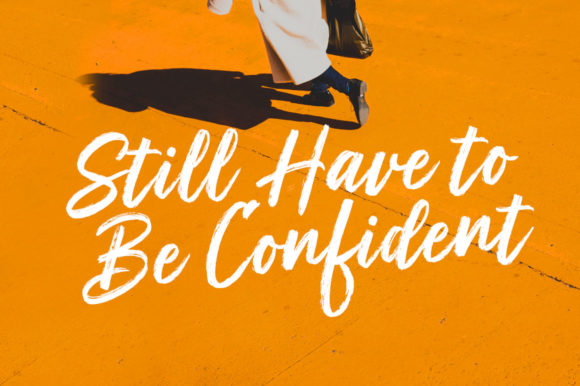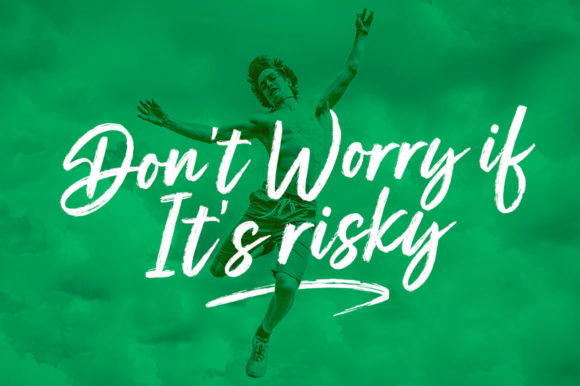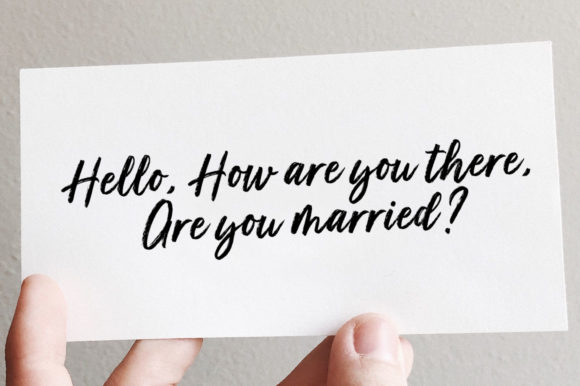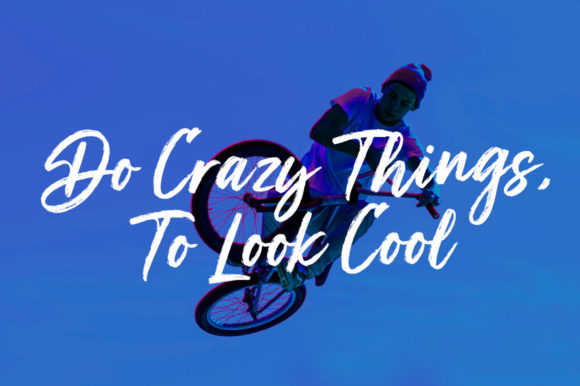
Dosty Font: Elevate Your Designs with Elegance and Charm
Are you looking for a font that exudes elegance, charm, and sophistication? Look no further than the stunning Dosty Font. This beautiful script font is a stylish homage to classic calligraphy, perfect for designers and crafters seeking to elevate their designs to new heights. With its varying baseline, smooth lines, gorgeous glyphs, and stunning alternates, Dosty Font is sure to become your go-to choice for a wide range of design projects.
A Stylish Tribute to Classic Calligraphy
Dosty Font is a masterful recreation of traditional calligraphy, with a modern twist. Its elegant strokes and fluid lines evoke the feeling of handwritten calligraphy, while its digital format allows for effortless scalability and versatility. Whether you’re designing a logo, creating wedding invitations, or crafting a brand identity, Dosty Font is the perfect choice for adding a touch of sophistication and refinement.
Key Features of Dosty Font
• Varying Baseline: Dosty Font features a subtle varying baseline that adds to its organic and handcrafted feel. This unique characteristic creates a sense of movement and fluidity, making it perfect for designs that require a touch of elegance.
• Smooth Lines: The font’s smooth lines and curves create a seamless visual experience, making it ideal for use in headings, titles, and other design elements where clarity and readability are essential.
• Gorgeous Glyphs: Dosty Font comes with a range of gorgeous glyphs, including alternates, ligatures, and swashes. These decorative elements allow you to add an extra layer of creativity and personality to your designs.
• Stunning Alternates: The font includes a range of stunning alternates, allowing you to experiment with different styles and variations. This feature is perfect for designers who want to create unique and eye-catching designs.
Dosty Font is an incredibly versatile font that can be used in a wide range of design projects, including:
• Branding: Create a lasting impression with Dosty Font’s elegant and sophisticated style. Use it to craft logos, business cards, and other brand identity materials that exude professionalism and refinement.
• Wedding Designs: Make your wedding designs truly unforgettable with Dosty Font’s romantic and whimsical feel. Use it to create stunning wedding invitations, save-the-date cards, and ceremony programs.
• Invitations: Whether you’re designing formal or informal invitations, Dosty Font is the perfect choice. Its elegant style and versatility make it suitable for a wide range of events and occasions.
• Signatures: Add a touch of elegance to your email signatures, social media profiles, or business documents with Dosty Font’s beautiful script style.
• Logos: Create a unique and memorable logo with Dosty Font’s gorgeous glyphs and alternates. Perfect for businesses, products, or services that require a touch of sophistication.
• Labels: Use Dosty Font to create eye-catching labels for products, packaging, or marketing materials. Its elegant style and clarity make it perfect for small and large designs alike.
Why Choose Dosty Font?
With so many fonts available, why choose Dosty Font? Here are just a few reasons why designers and crafters love this stunning script font:
• Elegance and Sophistication: Dosty Font exudes elegance and sophistication, making it perfect for designs that require a touch of refinement.
• Versatility: The font’s versatility allows you to use it in a wide range of design projects, from branding and wedding designs to logos and labels.
• Easy to Use: Dosty Font is incredibly easy to use, even for designers who are new to script fonts. Its clear and legible style makes it perfect for designs where readability is essential.
• Unique and Creative: With its gorgeous glyphs and alternates, Dosty Font allows you to add a unique and creative touch to your designs.
In conclusion, Dosty Font is a stunning script font that is sure to elevate your designs to new heights. Its elegant style, versatility, and ease of use make it perfect for designers and crafters seeking to add a touch of sophistication and refinement to their work. Whether you’re designing branding materials, wedding invitations, or logos, Dosty Font is the perfect choice.